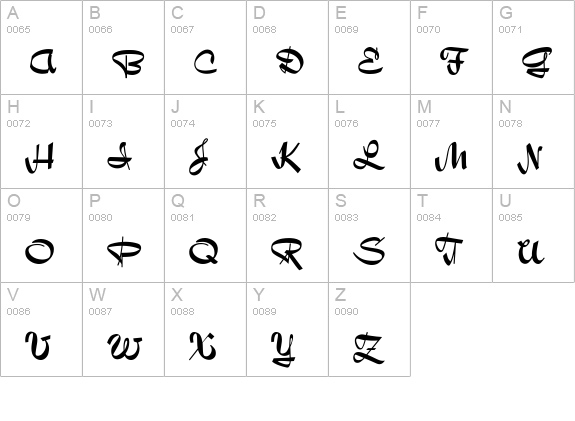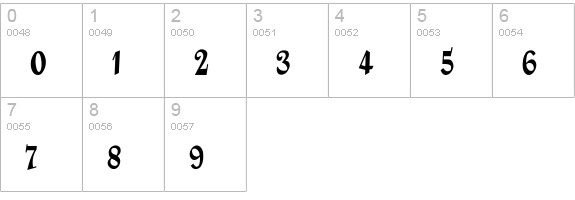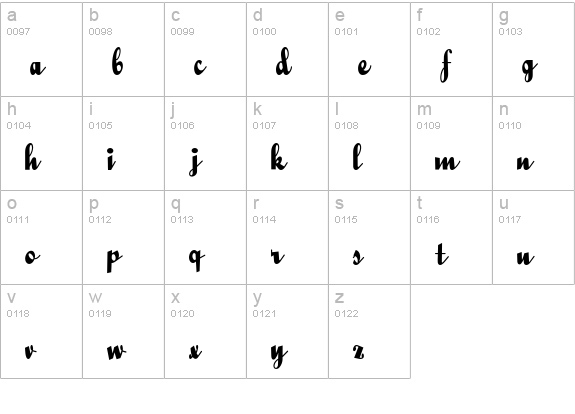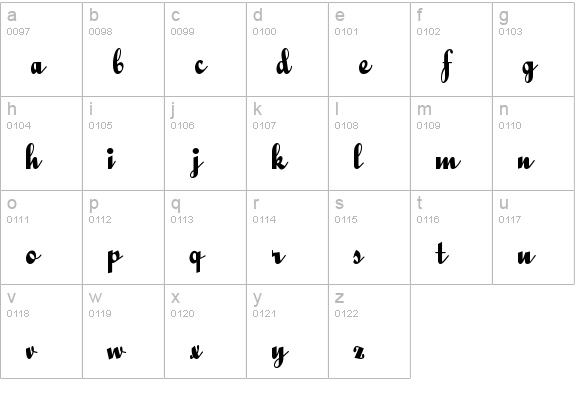
QuigleyWiggly Font Details
QuigleyWiggly font, a delightful typeface that will add a touch of whimsy to any design project. With its playful and energetic curves, this font exudes a sense of joy and lightheartedness. Each letter is carefully crafted to create a unique and distinctive look, making your text stand out in a crowd. But what makes QuigleyWiggly font even more special is that it is free! Yes, you read that right. This amazing font is freely available to download at FontsMarket.com. Whether you're a professional designer or a creative enthusiast, this font is a must-have in your collection. QuigleyWiggly font is perfect for a wide range of applications. Use it for branding projects, logo designs, packaging, invitations, greeting cards, posters, and so much more. Its versatility knows no bounds, and it will effortlessly inject a sense of fun and playfulness into any design. The smooth curves and unique letterforms of QuigleyWiggly font make it incredibly easy to read, ensuring that your message will come across clearly and effectively. Its legibility is enhanced by the balanced spacing and careful kerning, resulting in a clean and polished look. So why wait? Download QuigleyWiggly font today and let your creativity soar. With its free availability at FontsMarket.com, you can start using this font in your projects right away. Embrace the joy and vibrancy that QuigleyWiggly font brings, and watch your designs come to life with a touch of whimsy.